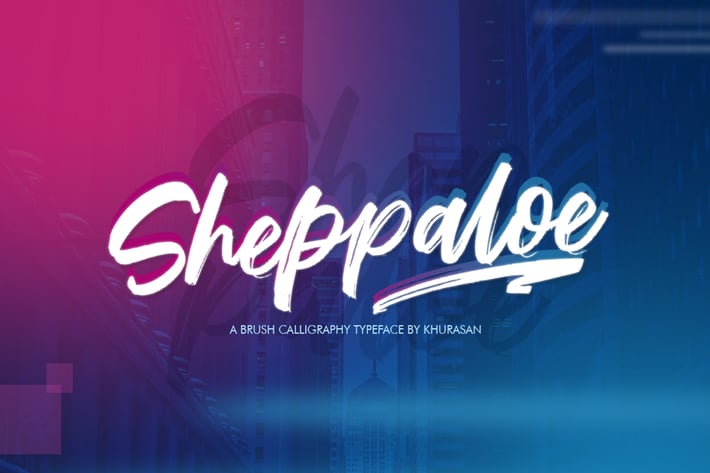
Sheppaloe Font
The Sheppaloe is a fresh handwritten font brush, elegant and vintage feel character set. The Sheppaloe font includes a full set capital and lowercase letters, as well as multi-lingual support, currency figures, numerals, & punctuation.